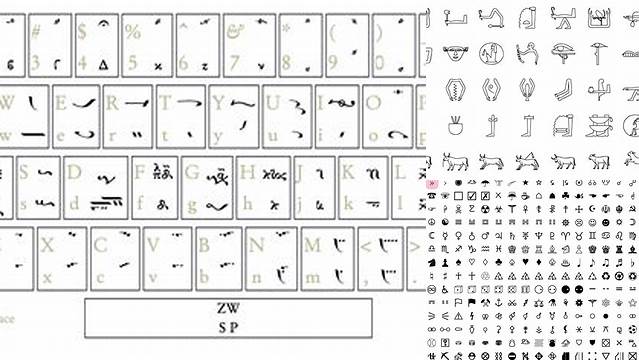
1. Understanding Unicode and Ancient Scripts
Before we jump into downloads, let's understand why Unicode is so crucial. Unicode is basically a universal character encoding standard. Think of it as a giant dictionary that assigns a unique number to every character, symbol, and glyph from virtually every writing system in the world, including ancient ones. This means that when you use a Unicode font, your computer knows exactly how to display that character, regardless of the operating system, software, or language settings.
Why Unicode Matters for Ancient Scripts
Imagine trying to read ancient Egyptian hieroglyphs on your computer without Unicode. You'd likely see a bunch of squares or gibberish because your system wouldn't know how to interpret those characters. Unicode solves this problem by providing a standardized way to represent these scripts. So, if you're serious about working with ancient languages, Unicode fonts are an absolute must.
2. Why Use Unicode Fonts?
Okay, so we know Unicode is important, but why exactly should you bother with Unicode fonts? Here’s a breakdown:
- Compatibility: Unicode fonts ensure that your text will display correctly across different platforms and applications. No more weird symbols or empty boxes!
- Searchability: Text encoded in Unicode is searchable, meaning you can easily find specific words or characters within a document.
- Preservation: Using Unicode helps preserve ancient scripts by ensuring they can be accurately represented and shared digitally.
- Collaboration: Sharing documents with others becomes much easier when everyone is using the same encoding standard.
3. Identifying the Right Fonts for Your Needs
Now, let’s get practical. Finding the right Unicode fonts for ancient scripts can feel like a treasure hunt. There are tons of options out there, but not all fonts are created equal. Here's how to narrow down your search:
3.1. Specific Script
First, identify the specific script you're working with. Are you interested in cuneiform, hieroglyphs, Linear B, or something else? Different scripts require different fonts. For example, if you’re working with cuneiform, you’ll need a font specifically designed for that script, like Akkadian. It's crucial to know which script you're targeting to avoid downloading the wrong font.
3.2. Font Coverage
Next, consider the font coverage. Does the font include all the characters and symbols you need? Some fonts might only cover a subset of characters, which can be frustrating if you encounter missing glyphs in your text. Check the font’s character map or documentation to ensure it meets your requirements. For instance, a comprehensive hieroglyphic font should include a wide range of Gardiner sign-list characters.
3.3. Font Style and Readability
Don't forget about font style and readability. A beautifully designed font is great, but if it's difficult to read, it's not very useful. Look for fonts that are clear, well-proportioned, and suitable for both on-screen reading and printing. Some ancient scripts can be quite complex, so a clear font is essential for accurate interpretation.
4. Best Resources for Downloading Unicode Fonts
Alright, let's talk about where to actually find these Unicode fonts. There are several excellent resources online where you can download fonts for ancient scripts:
4.1. SIL International
SIL International is a non-profit organization dedicated to language development and documentation. They offer a variety of high-quality Unicode fonts, including some specifically designed for ancient scripts. Their fonts are often well-researched and meticulously crafted, making them a reliable choice. The SIL Ezra font, for example, is excellent for Semitic scripts.
4.2. Ancient Scripts Unicode Fonts from Various Universities
Many universities and research institutions also offer Unicode fonts for ancient scripts. These fonts are often developed by scholars and experts in the field, ensuring accuracy and completeness. Check the websites of universities with strong programs in ancient languages and archaeology. For example, some universities might offer fonts for specific regional scripts or languages used in archaeological texts.
4.3. Online Font Repositories
Online font repositories like Font Squirrel, DaFont, and MyFonts are great places to browse a wide selection of Unicode fonts. Just be sure to check the license agreement before using a font, as some fonts may have restrictions on commercial use. These repositories can be a goldmine for unique and specialized fonts, but always verify the quality and completeness of the font before relying on it for scholarly work.